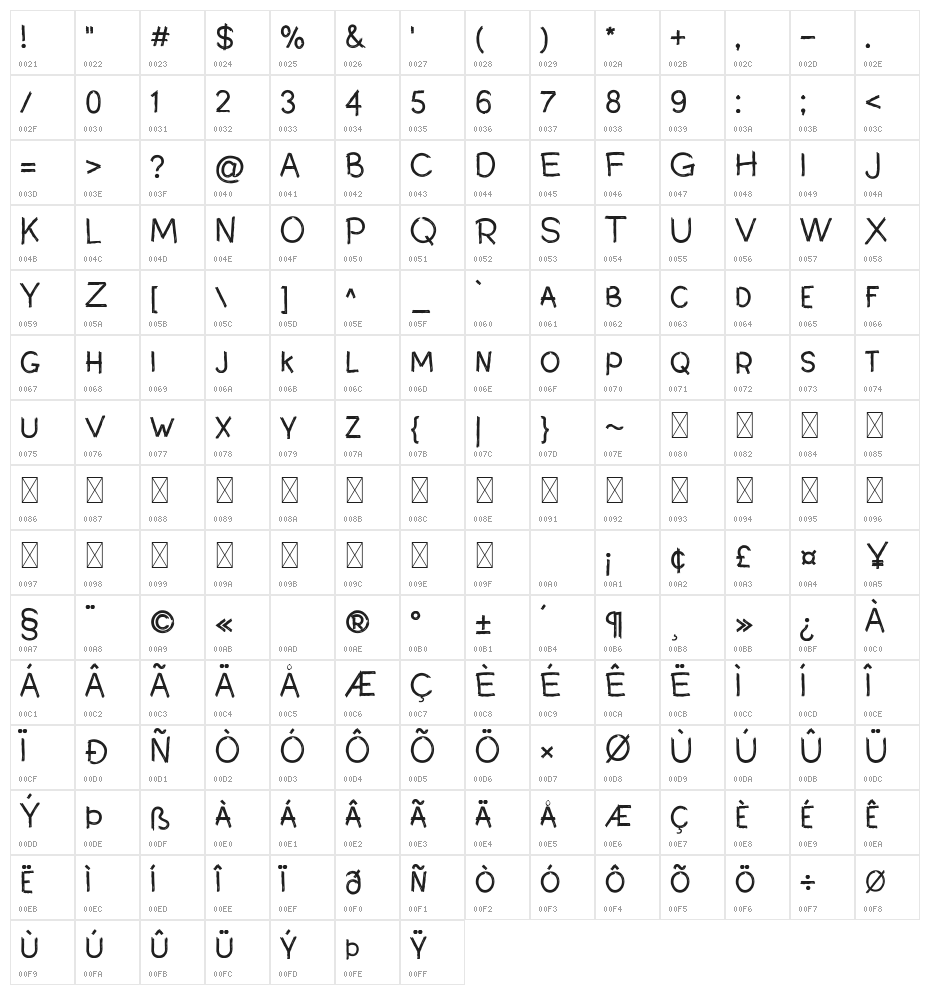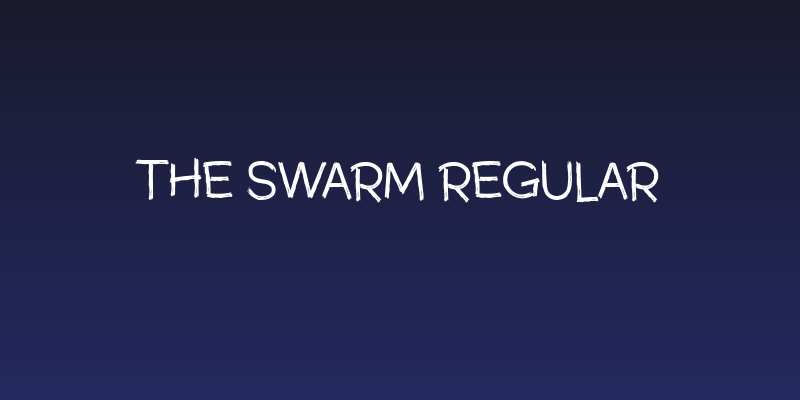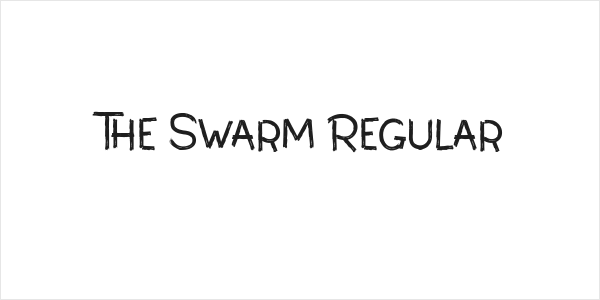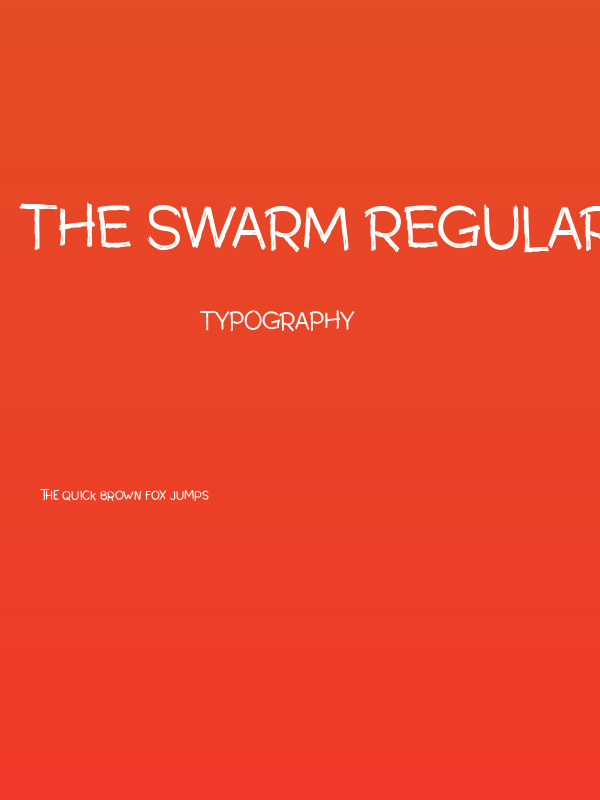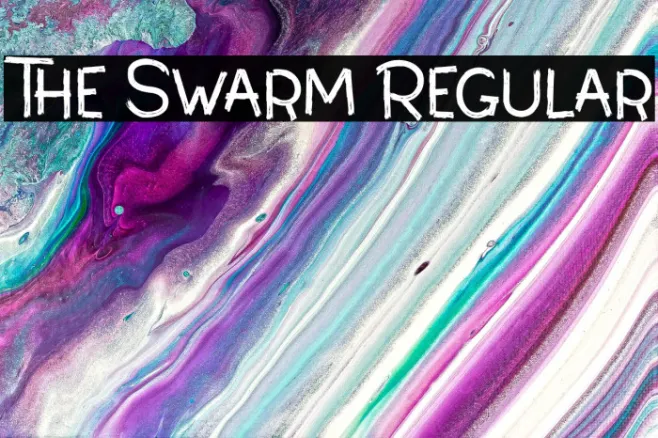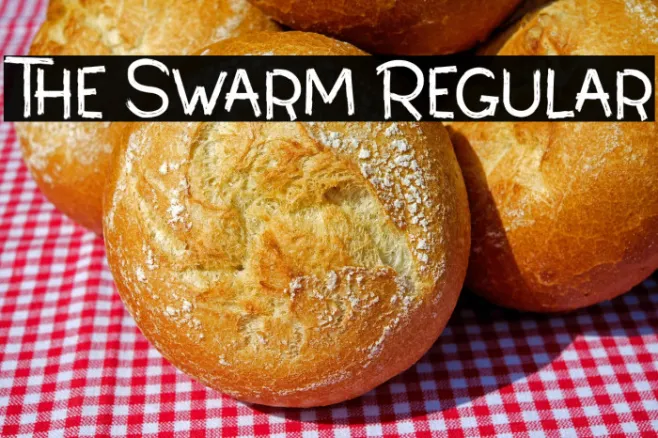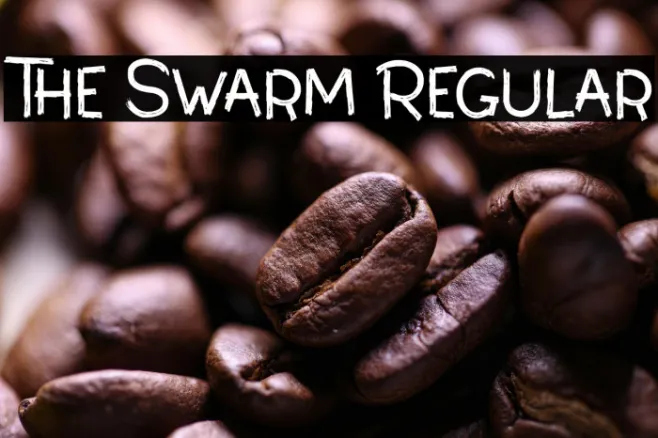
The Swarm Regular Font
The Swarm Regular Description
This font features a bold, hand-drawn aesthetic with a slightly rough texture, giving it a dynamic and energetic feel. The characters are uppercase and lowercase, with numbers and a variety of special characters. The strokes are thick and uneven, adding to the casual and informal style. It has a playful and artistic vibe, making it suitable for creative projects. The overall appearance is bold and impactful, with a unique personality that stands out.
| Proposed Projects | Ideal for posters, album covers, children's books, and creative branding. |